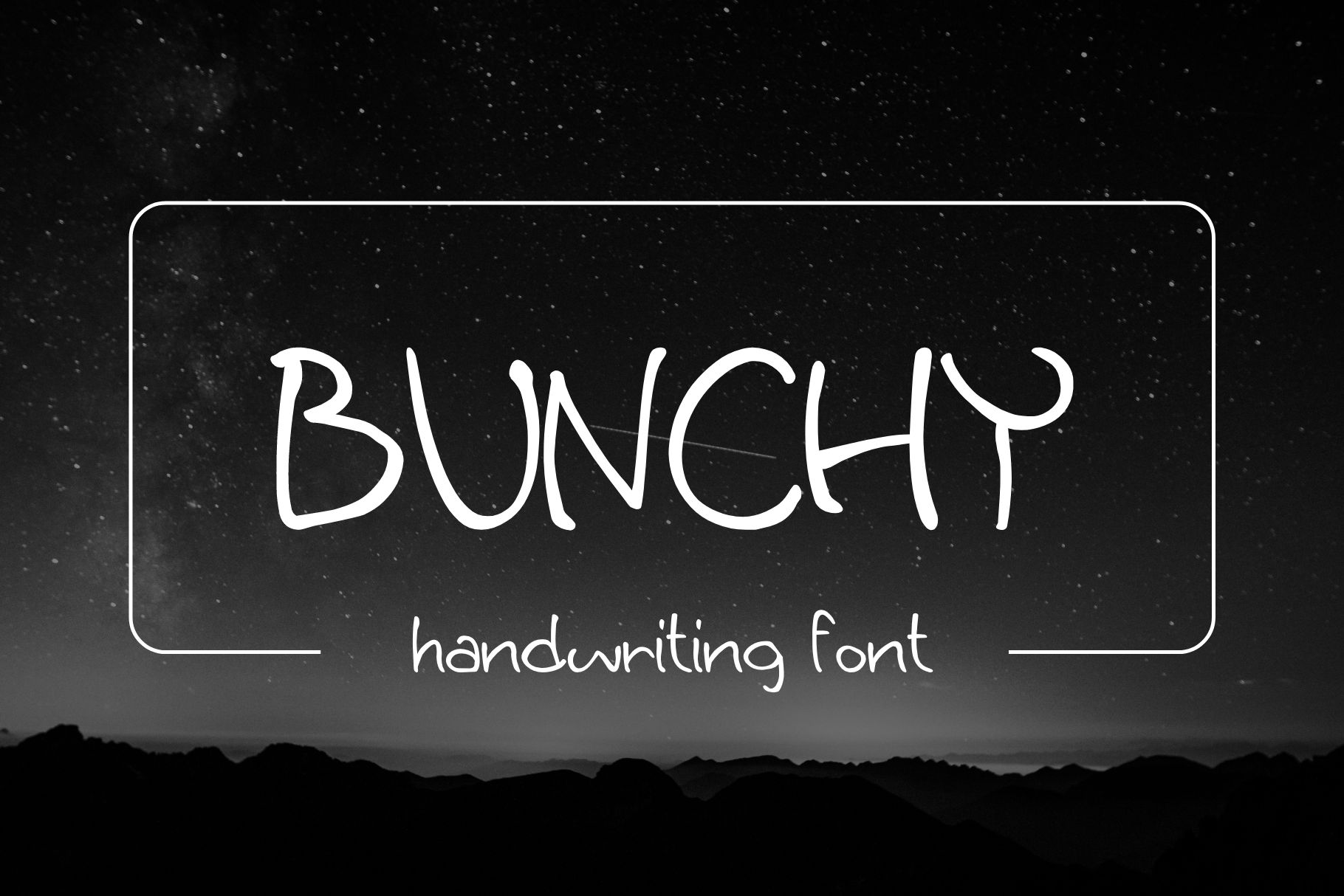
Bunchy - Modern Typeface
Bunchy - beautifully crafted modern typeface with 2 styles (regular & italic) for your awesome projects
- Consistency
- Well organized
- Easy to use